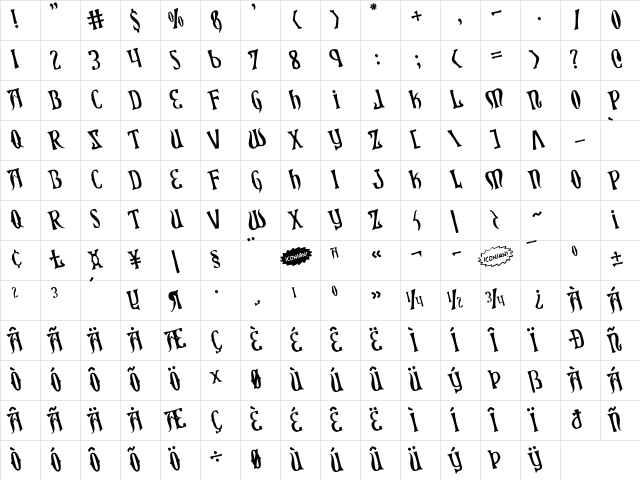
Complete Xiphos Rotated glyph index. Displaying only characters natively supported by Xiphos Rotated font.
Xiphos Rotated is a composed and adaptable typeface that performs quietly and consistently across a wide range of design contexts.